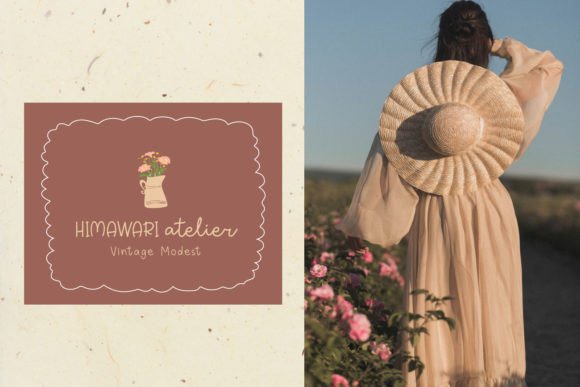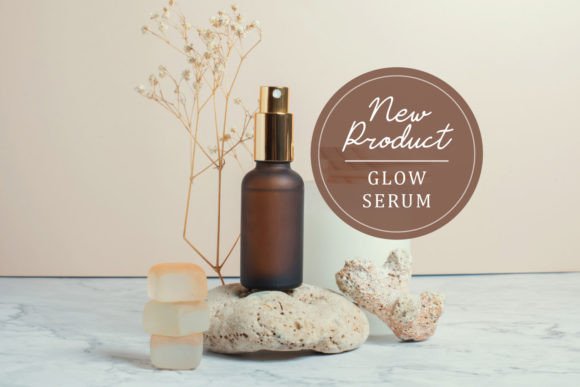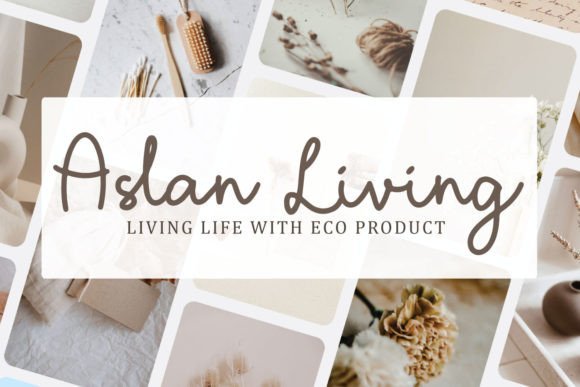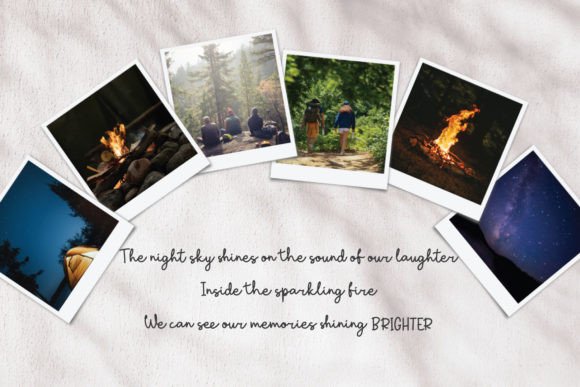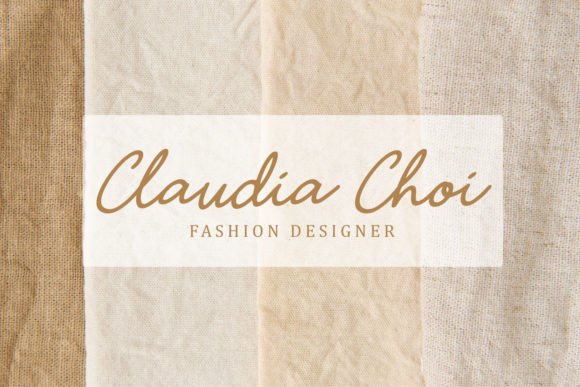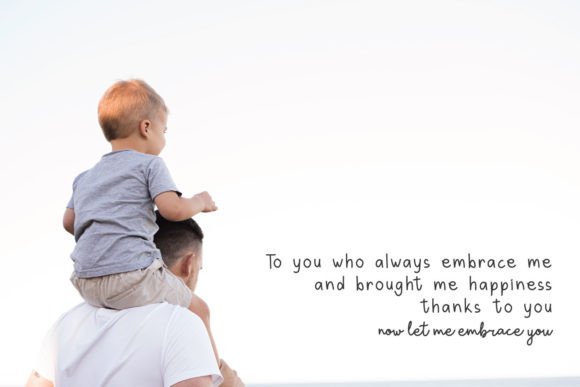
Introduction to Gastella Night Font
As you sit at your desk, surrounded by scattered papers, and a blank computer screen staring back at you, the creative spark finally hits – it’s time to bring your idea to life. You envision a beautiful, eye-catching design that perfectly captures the essence of your project. But, the right font can make all the difference. This is where Gastella Night Font comes in – a unique, handwritten font family designed to elevate your creative vision.
Whether you’re working on a personal project or a professional design, Gastella Night Font is a valuable resource that can add a touch of elegance and sophistication to your work. Its high-quality design and transparent background make it an ideal choice for designers looking to create stunning visuals. With Gastella Night Font, you can take your creative project to the next level, and with a free download available, you can start experimenting with this versatile font right away.
Key Features of Gastella Night Font
- Unique, elegant design with a touch of sophistication perfect for luxury branding
- Designed to be versatile and suitable for both digital and print applications
Honest Review: Gastella Night Font
As a designer, I’m always on the lookout for high-quality fonts that can elevate my creative projects. The Gastella Night Font is one such find. With its sleek and modern design, this font is perfect for anyone looking to add a touch of sophistication to their designs.
- ✨ The Gastella Night Font features a transparent background, making it easy to combine with other design elements.
- ✨ The font is highly customizable, with a range of styles and sizes to choose from.
While the Gastella Night Font is a great addition to any design resource library, there are a few limitations to keep in mind. Specifically, the font may not be suitable for use in low-resolution designs or applications where text clarity is a concern.
- ⚠️ The font may appear blurry or pixelated in low-resolution designs.
- ⚠️ It’s not recommended for use in applications where high text clarity is a must, such as in print materials or on small screens.
Overall, I’m impressed with the Gastella Night Font. Its high quality and versatility make it a valuable addition to any designer’s toolkit. With a little care and attention, this font can help take your designs to the next level.
How to Use Gastella Night Font
Tips for Getting the Most Out of Gastella Night Font
When using the Gastella Night Font, consider the following tips:
- Use the font in conjunction with a transparent background to create a visually striking design.
- Experiment with different font sizes and styles to add depth and variety to your design.
- Combine the Gastella Night Font with other design elements, such as images and graphics, to create a cohesive and engaging visual identity.
Common Use Cases for Gastella Night Font
The Gastella Night Font is suitable for a variety of design projects, including:
- Branding and identity design
- Marketing materials, such as brochures and flyers
- Print design, including business cards and posters
Alternatives to Gastella Night Font
Can I use the Gastella Night Font on a transparent background?
Yes, the Gastella Night Font is designed to work well on transparent backgrounds. The font’s transparent background allows for seamless integration with your design’s background image or color. Simply use the font in your design software, and the transparent background will be preserved. This feature is especially useful for creating stunning designs with complex backgrounds.